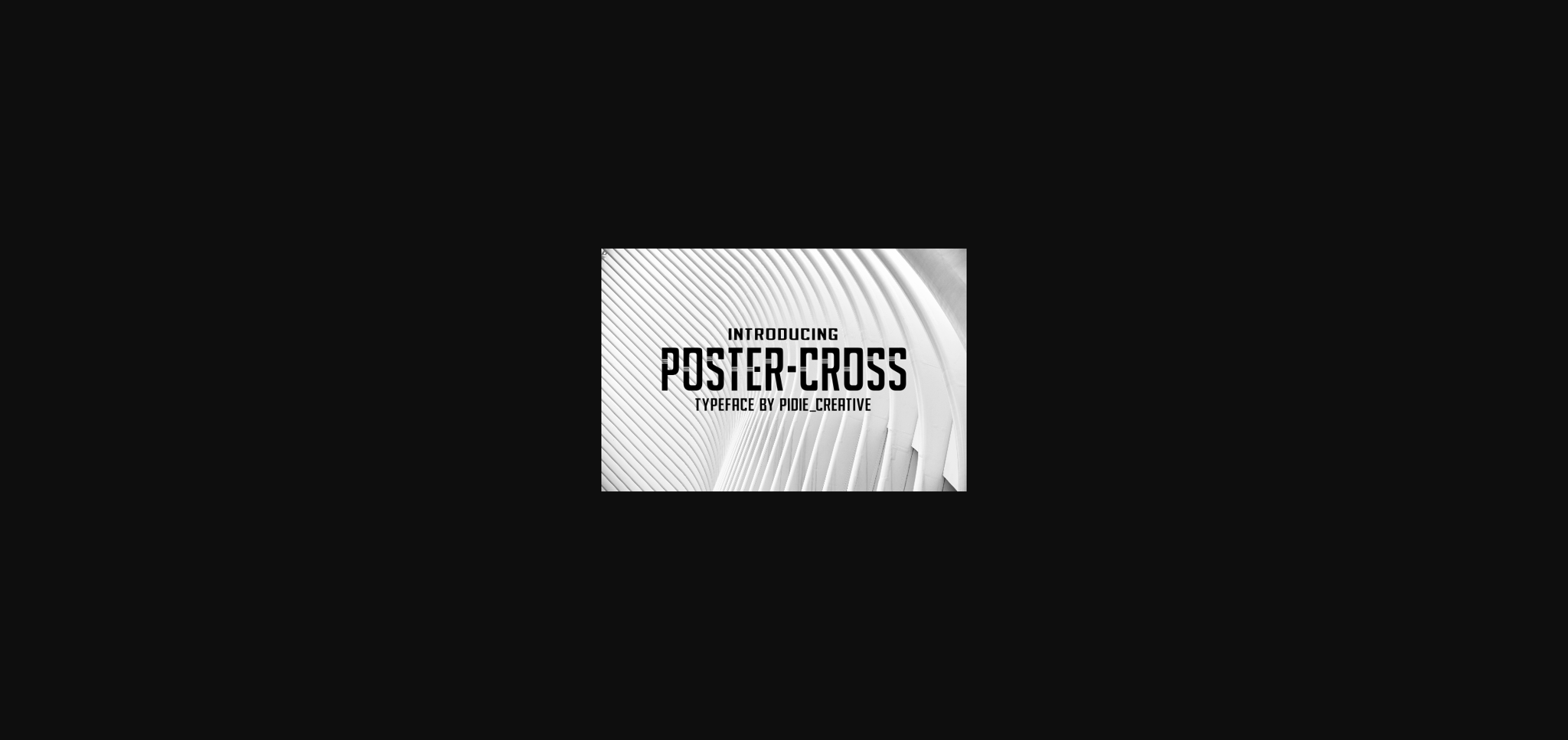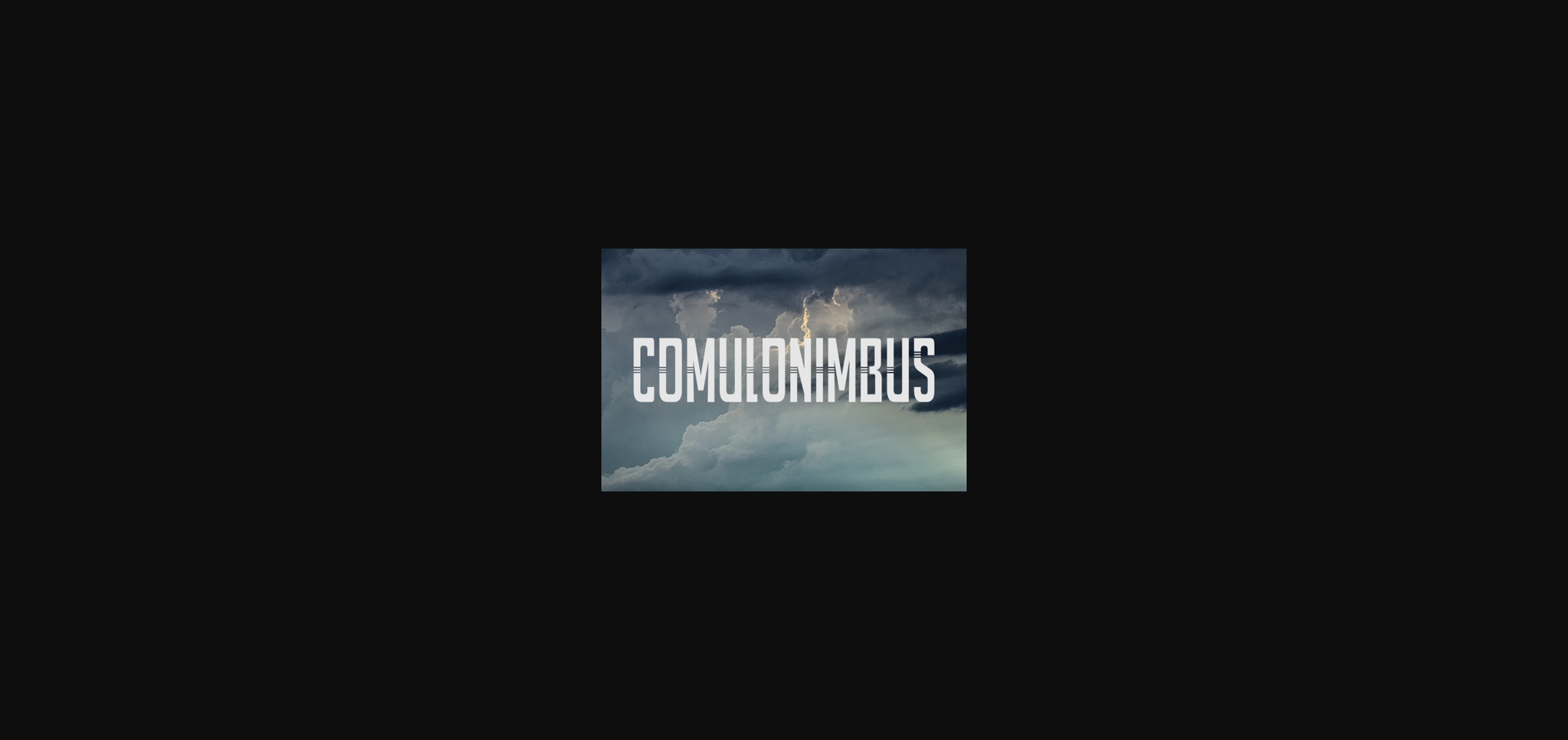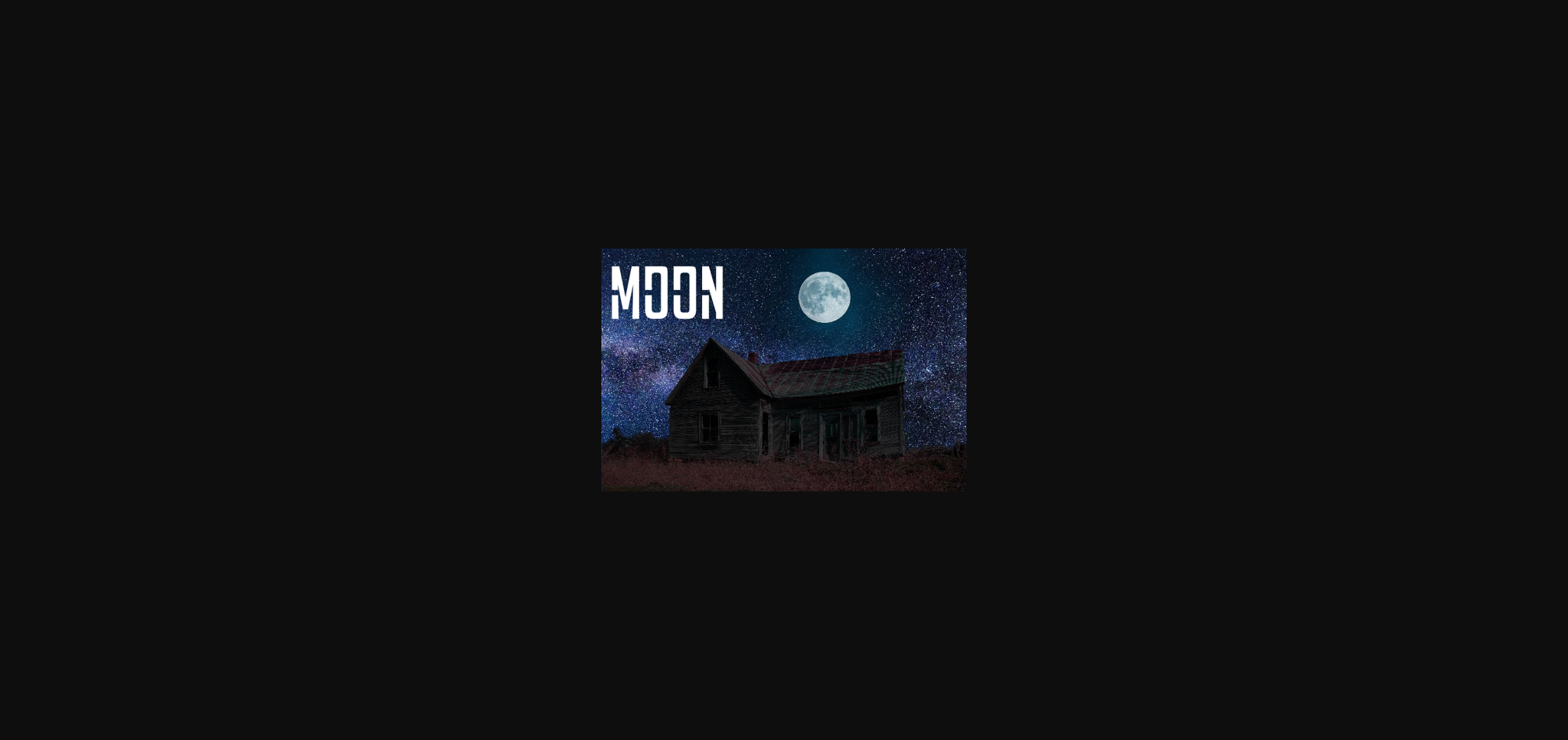
Poster Cross Font
About Poster Cross Font
Poster Cross is a simple and casual sans serif font with an undeniably clean feel. With its neat and beautiful arrangement of letters, this typeface will look outstanding in both formal and non-formal designs.